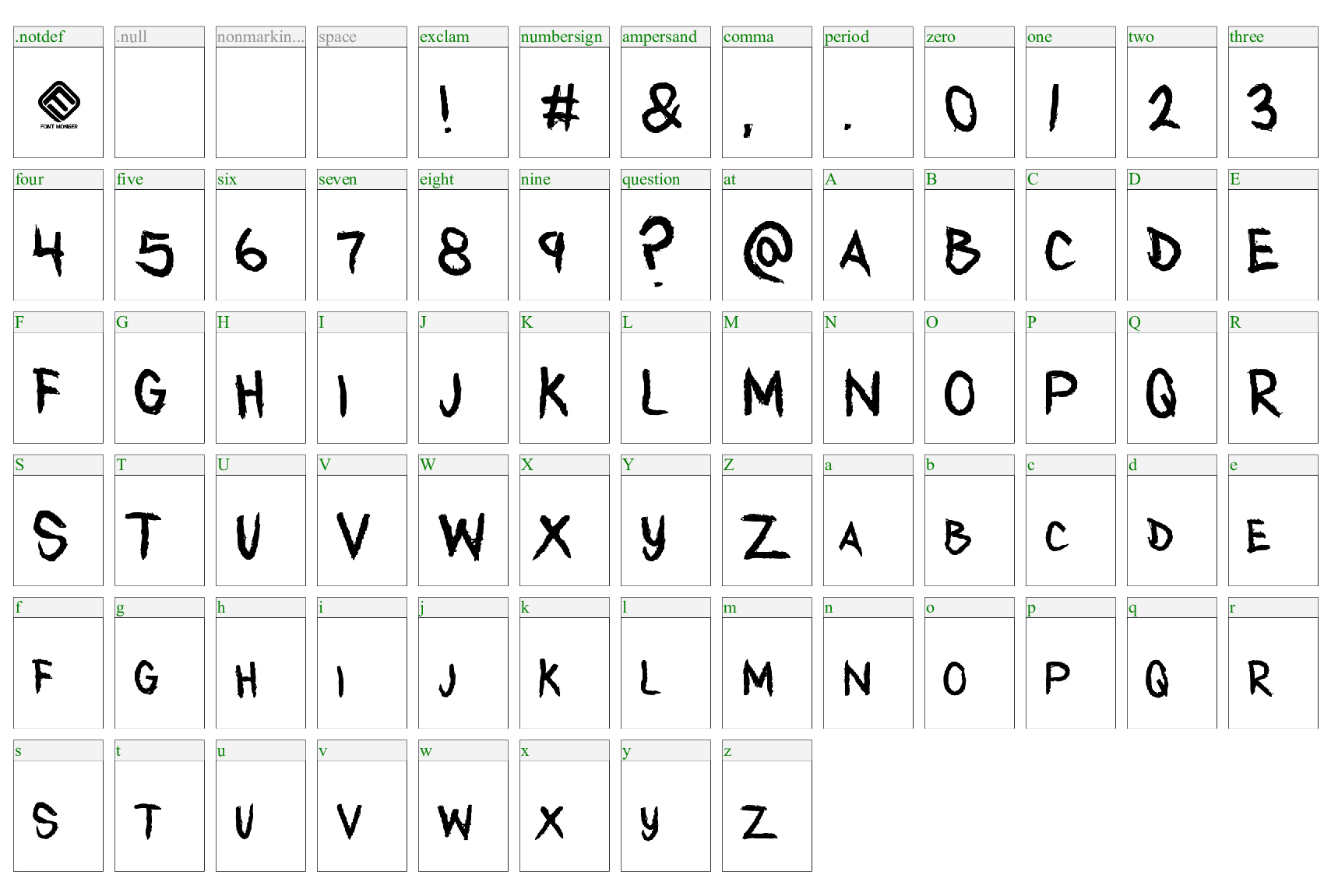
Any Takers: A hand-drawn font with a chilling, horror-inspired aesthetic. Its rough, erratic lines and jagged edges give each letter a sense of unease, as if they were scrawled in a fit of terror. Ideal for creating posters, book covers, and other projects that require a touch of the macabre, Any Takers font is sure to make a statement that's both creepy and intriguing.
Lowercase: Same as uppercase, scaled down.
Numbers: Yes
Symbols: Very limited. View image below to see available characters.
Theme: Trash, Horror